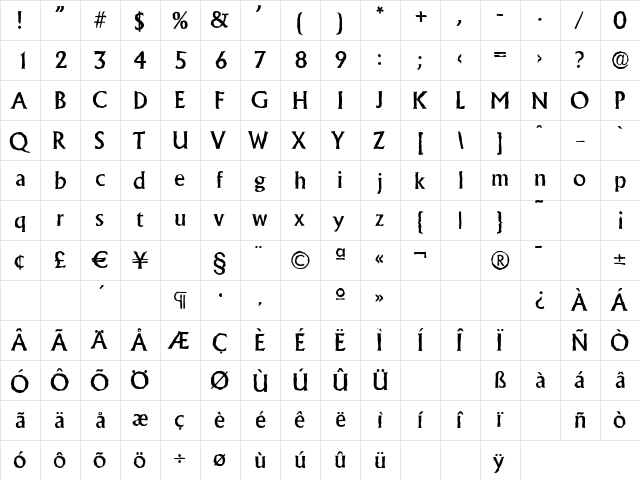
AdelonAntique-Medium Regular
Design Context for AdelonAntique-Medium Typeface
AdelonAntique-Medium wears its vintage influences proudly, with letterforms that recall mid-century signage, classic packaging, and nostalgia-driven design.
Font Pairing: Combine AdelonAntique-Medium with a simple slab or neutral sans — period-accurate companions reinforce the vintage feel without competing for attention.
Pro Tip: Use AdelonAntique-Medium for headlines and pull quotes rather than body copy — its personality is best appreciated in short, focused bursts.